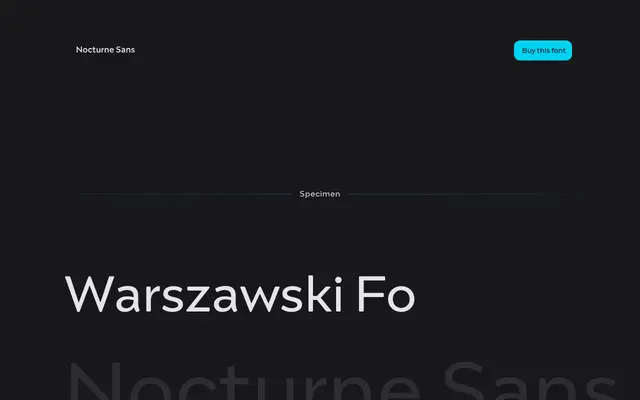
Nocturne Sans
Capitalics · Mateusz Machalski · 2025
A contemporary grotesque with humanist undertones, designed in 2025 as a companion to Nocturne Serif, itself rooted in Warsaw's wartime commemorative plaques.
Developed by Mateusz Machalski with contributions from Karol Mularczyk, Małgorzata Bartosik and Borys Kosmynka, Nocturne Sans translates the Renaissance proportions and calligraphic warmth of Nocturne Serif into a sharper, more minimal form. The family spans ten weights from Hairline to Black, each with a matching italic, covering editorial, branding and identity applications. Its origins trace back to Karol Tchorek's 1949 Warsaw martyrdom plaques, giving the typeface a specific cultural grounding rarely found in contemporary grotesque releases.
Described by the foundry as a contemporary grotesque blending geometric precision with humanist warmth; a sans-serif companion to Nocturne Serif, sharing its historical origins but adopting a clean, minimal form.